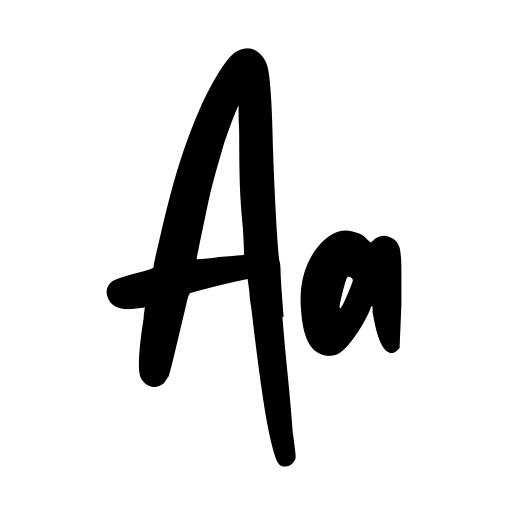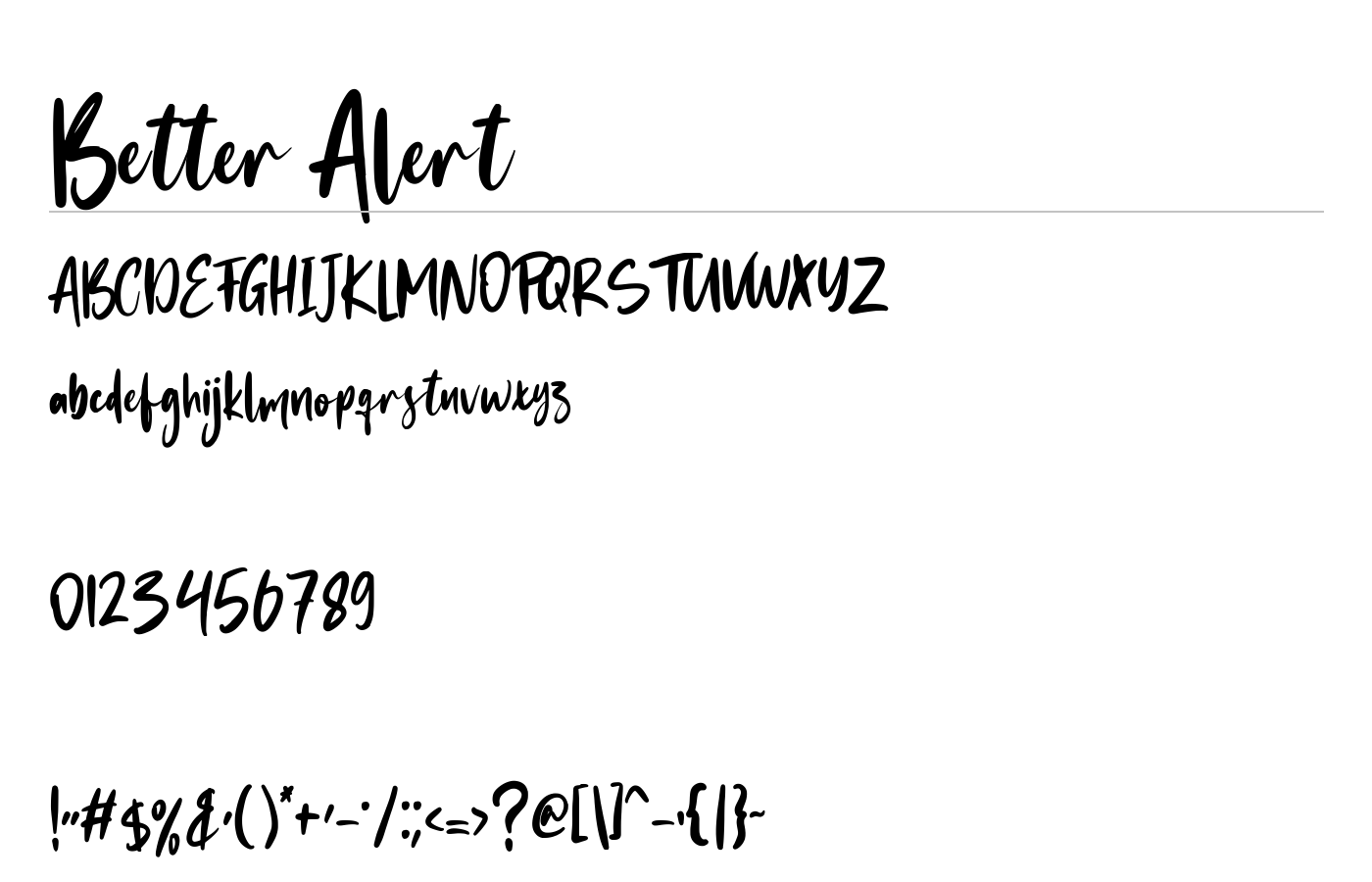
Better Alert is a lively and playful handwritten font with a bold, casual style that feels approachable and dynamic. Its irregular strokes and friendly letterforms make it perfect for creative projects, branding, and eye-catching headlines that need an informal, energetic touch. This font works especially well in designs that aim to convey warmth, friendliness, and a personal, handcrafted vibe.
Better Alert Font
About Better Alert Font
| Font family | Better Alert Font |
| Designer | Hugefonts |